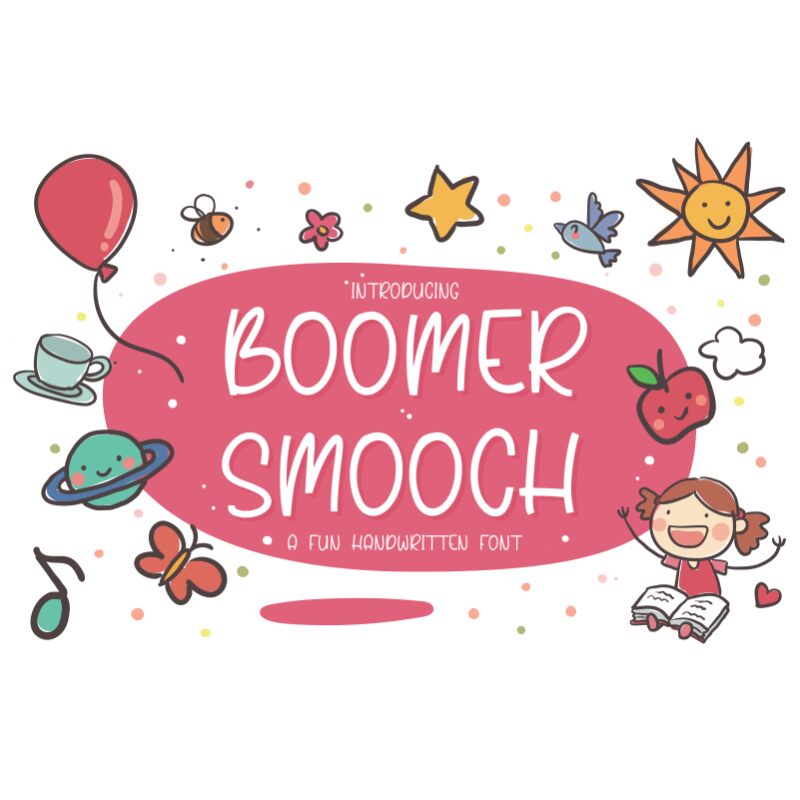
Boomer Smooch
Introduce your project with a new layer of personality - Boomer Smooch from Qwrtype Foundry. This handwritten font is ideal for giving your projects a light, fun feel. With its whimsical curves and lively movement, Boomer Smooch adds a unique charm to logos, invitations and stationery designs. It's perfect for adding a touch of creativity to websites, magazines or any other creative project you have in mind.